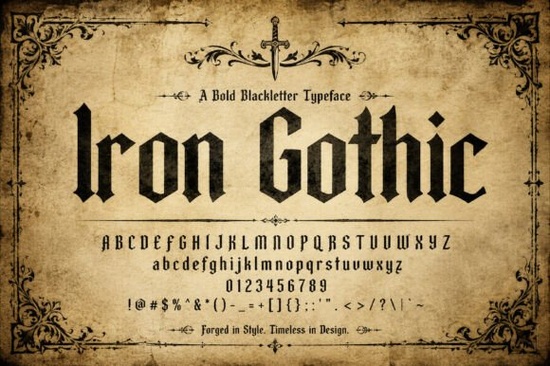
If you've been searching for a blackletter typeface that feels both historic and polished, Iron Gothic Font is worth a close look. Designed with sharp terminals and strong vertical strokes, it brings the weight and character of old-world blacksmithing into a clean, structured typeface. Whether you're working on a heritage brand, a craft label, or a bold editorial layout, this font delivers a sense of authority without feeling outdated.
What Does Iron Gothic Font Look Like?
Iron Gothic is a bold blackletter typeface that draws directly from traditional calligraphy but keeps things structurally sound. The letterforms have rhythmic vertical strokes and sharp terminals the kind of details you'd expect from a typeface inspired by metalwork and medieval craft.
Unlike some blackletter fonts that feel overly ornate or hard to read, Iron Gothic balances its classic posture with modern clarity. The visual weight stays consistent across the character set, which means it works well at both large headline sizes and moderate display text. It reads as polished rather than chaotic.
Key characteristics include:
- Bold weight with strong presence on any background
- Clean structural lines that avoid decorative clutter
- Balanced spacing and proportions for professional use
- A darkletter aesthetic rooted in artisanal craft traditions
Where Does This Font Work Best?
Based on its design and character, Iron Gothic Font fits a specific range of projects really well. Here are some of the most common use cases:
- Artisanal spirit and beverage labels whiskey, craft beer, and wine brands often need typefaces that signal heritage and quality. Iron Gothic delivers that without looking cliché.
- Heritage branding If you're building a brand identity around tradition, craftsmanship, or old-world values, this font gives your logo and collateral the right tone.
- Historical editorial layouts Magazine spreads, book chapter headings, and documentary title cards benefit from its authoritative character.
- Tavern and pub signage Bespoke signage for restaurants, breweries, and themed venues pairs naturally with a font like this.
- Print-on-demand products T-shirts, mugs, and posters with gothic or medieval themes look sharp with Iron Gothic as the headline type.
The font works especially well when you need your headlines to stand out with a timeless, legendary feel something that commands attention without relying on trendy effects.
How Does It Compare to Other Blackletter Fonts?
The blackletter category on Creative Fabrica has a lot of variety. Some fonts lean heavily into ornamental detail, while others strip things down to a minimal gothic skeleton. Iron Gothic sits in a useful middle ground it's bold and expressive but still readable and restrained.
If you're comparing options, you might also look at Timelapse font, which offers a different take on blackletter style. It's available as part of the blackletter font collection and could be a good alternative depending on the mood you're going for. Timelapse tends to have a slightly different rhythm and visual texture compared to Iron Gothic's smithing-inspired precision.
When choosing between blackletter fonts, consider these factors:
- Readability Will your audience read it easily at the size you're using?
- Context Does the font match the tone of your project (rugged, elegant, historical)?
- Versatility Can it work across multiple applications, or is it limited to one style?
Who Should Use Iron Gothic Font?
This font is a strong pick for designers and small business owners who work on branding projects with a heritage or artisanal angle. If you run a print-on-demand shop and sell gothic-themed merchandise, having a reliable bold blackletter font in your toolkit saves time and keeps your designs consistent.
Crafters working on vinyl decals, iron-on transfers, or custom signage will also find it useful the bold weight cuts well and holds its shape at various sizes. And if you're a creative hobbyist working on personal projects like invitations, event posters, or scrapbook elements, Iron Gothic gives you that handcrafted look without needing to hand-letter anything.
- ✔️ Pair it with a clean sans-serif or serif body font for contrast
- ✔️ Avoid using blackletter fonts for long paragraphs they're best for headlines and display text
- ✔️ Consider how the font looks on both light and dark backgrounds